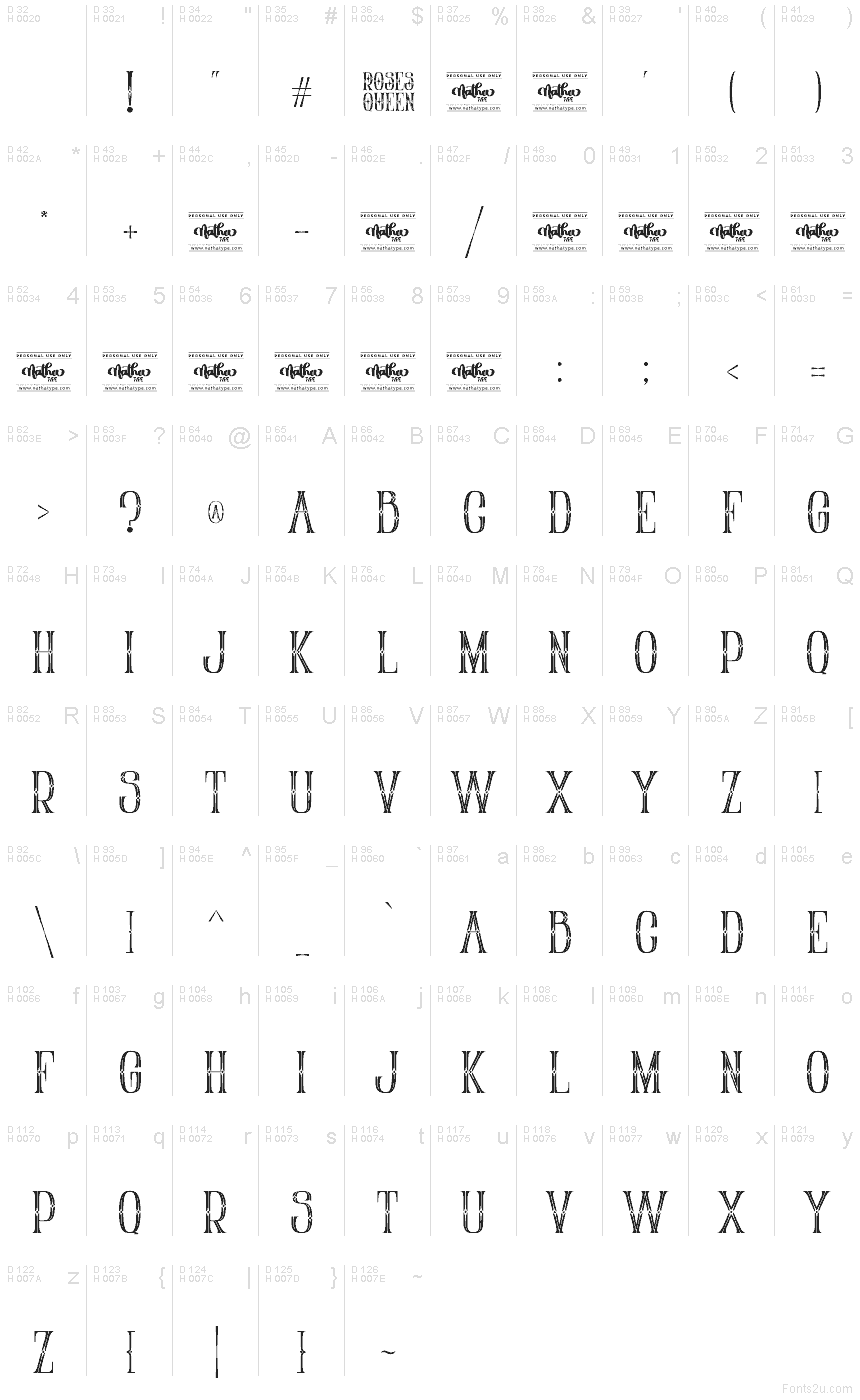
Roses Queen font by Nathatype is a free retro decorative typeface. Tall, elegant letterforms are etched with vine‑like inlines and a lightly weathered edge, giving each word the luster of hand‑tooled metal or letterpress ink. The condensed proportions pull text into a sleek column, while the floral filigree adds a wink of romance-refined, not fussy.
Using Roses Queen, headlines and logos snap into focus for vintage posters, boutique branding, wine or perfume labels, book covers, event invitations, and album art. This free font shines when set large to reveal the engraved texture; give it a touch of extra tracking for air. Pair with a plain, modern sans to keep layouts crisp and let the ornament sing.